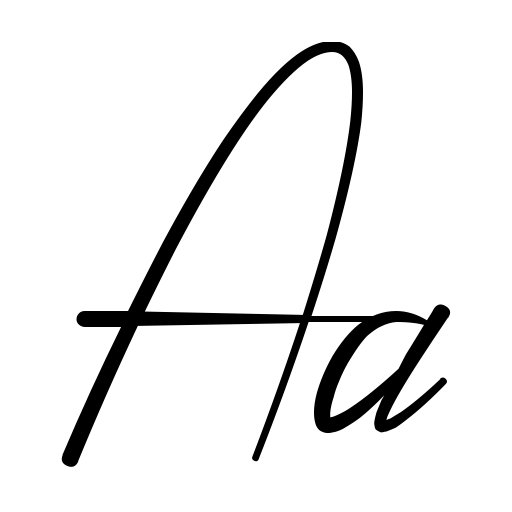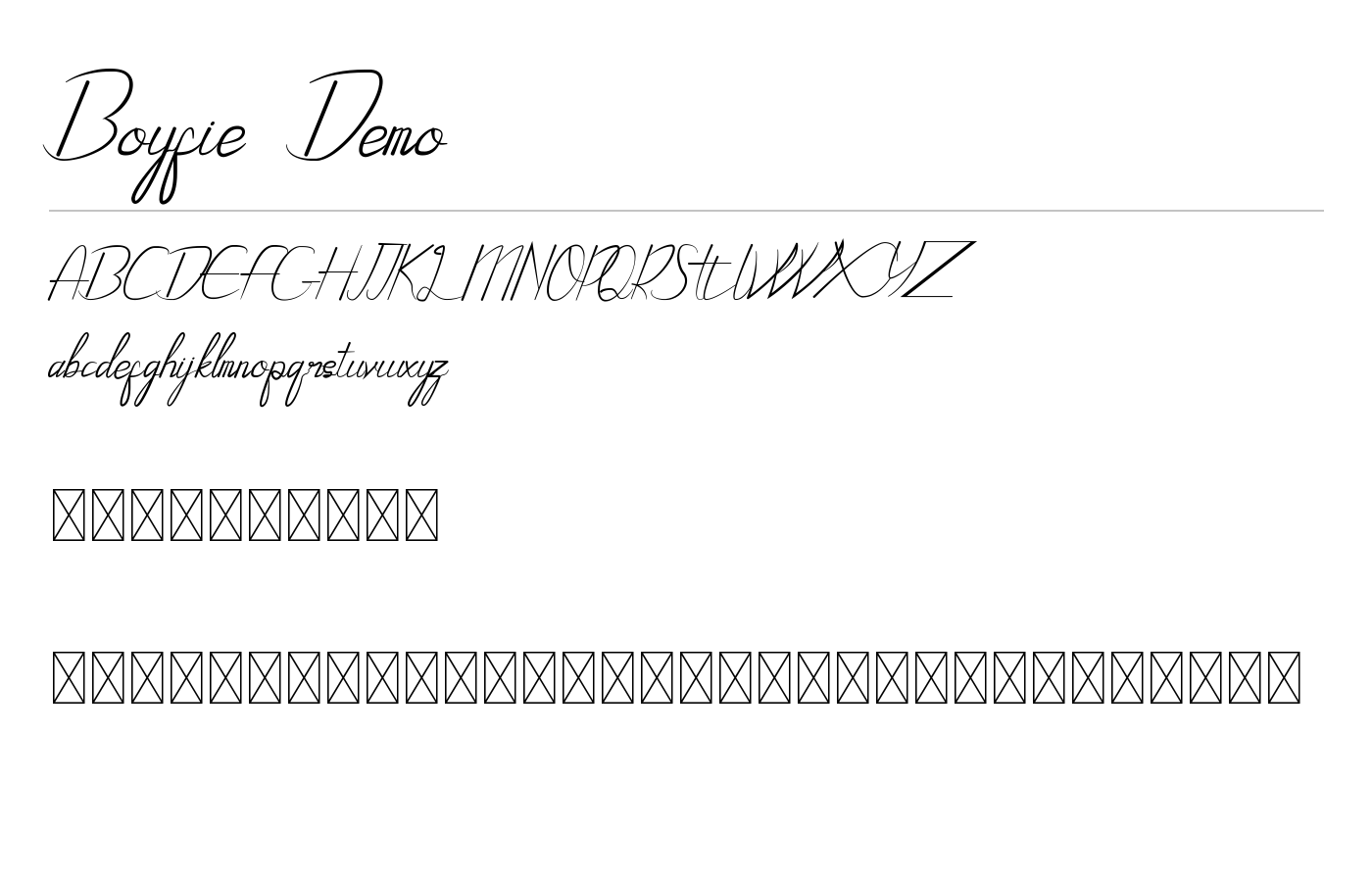
Boyfie Demo is a slender, elegant script font with a handwritten feel characterized by its tall, narrow letterforms and fine, flowing strokes. Its delicate and modern style, combined with a casual yet refined personality, makes it perfect for use in fashion branding, invitations, and editorial headlines where a touch of sophistication and grace is desired. This font works best in display settings where its unique charm can add an airy, stylish flair.
Boyfie Demo Font
About Boyfie Demo Font